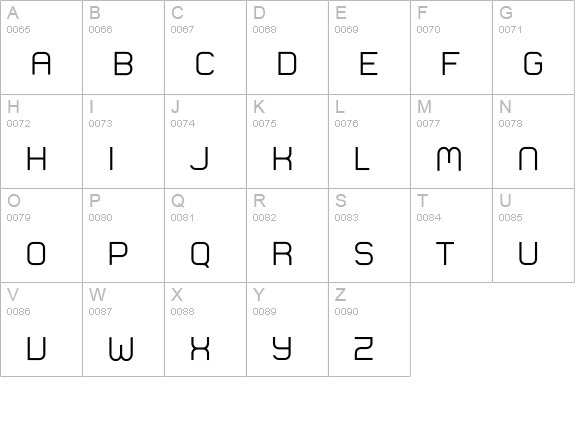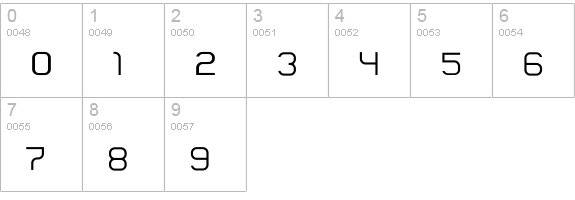
Comsat-Stealth Font Details
Comsat-Stealth font is a sleek and modern typeface that exudes a sense of sophistication and elegance. Its clean lines and sharp angles make it perfect for a wide range of design projects, from branding to editorial layouts. The unique combination of geometric shapes and minimalist design elements gives Comsat-Stealth a futuristic and edgy feel that will make your text stand out. What makes Comsat-Stealth font even more appealing is that it is available for free download at FontsMarket.com. This means you can easily access this stylish and versatile font without any cost, making it a valuable addition to your font collection. Whether you're working on a professional project or simply looking to enhance your personal designs, Comsat-Stealth font is sure to impress with its contemporary aesthetic and clean, modern look.